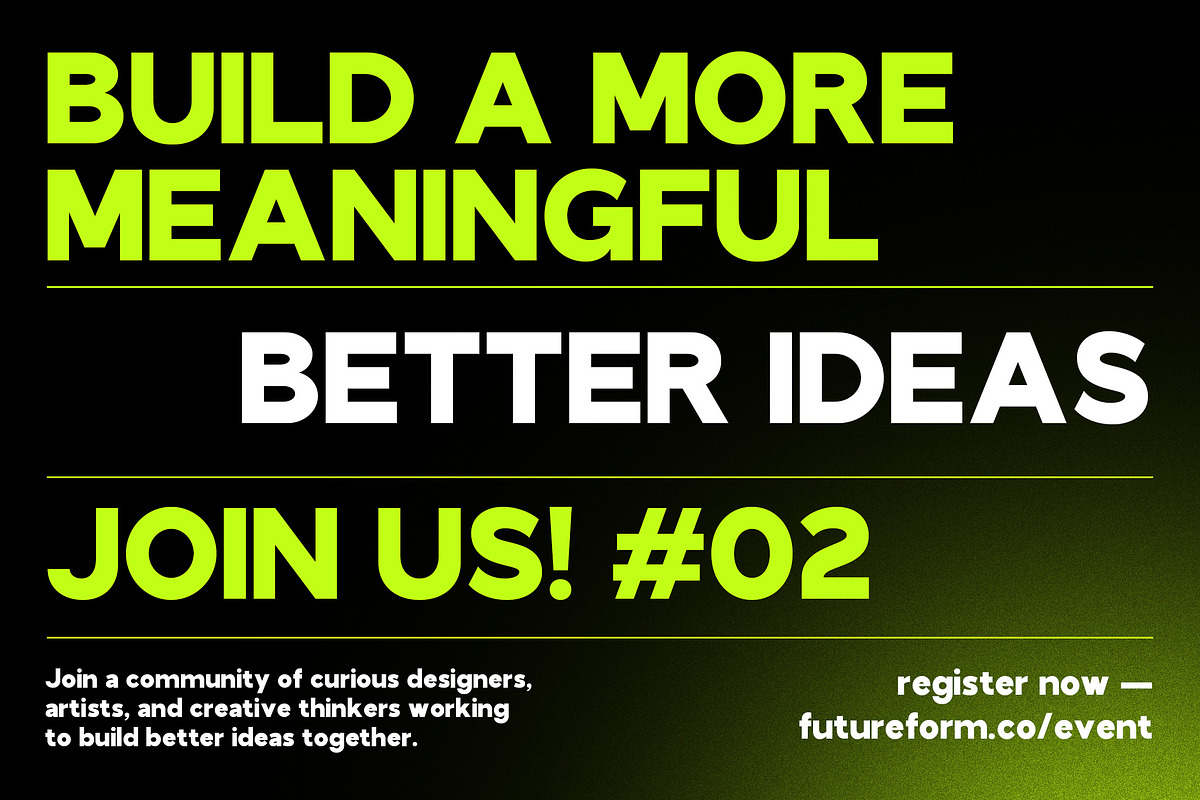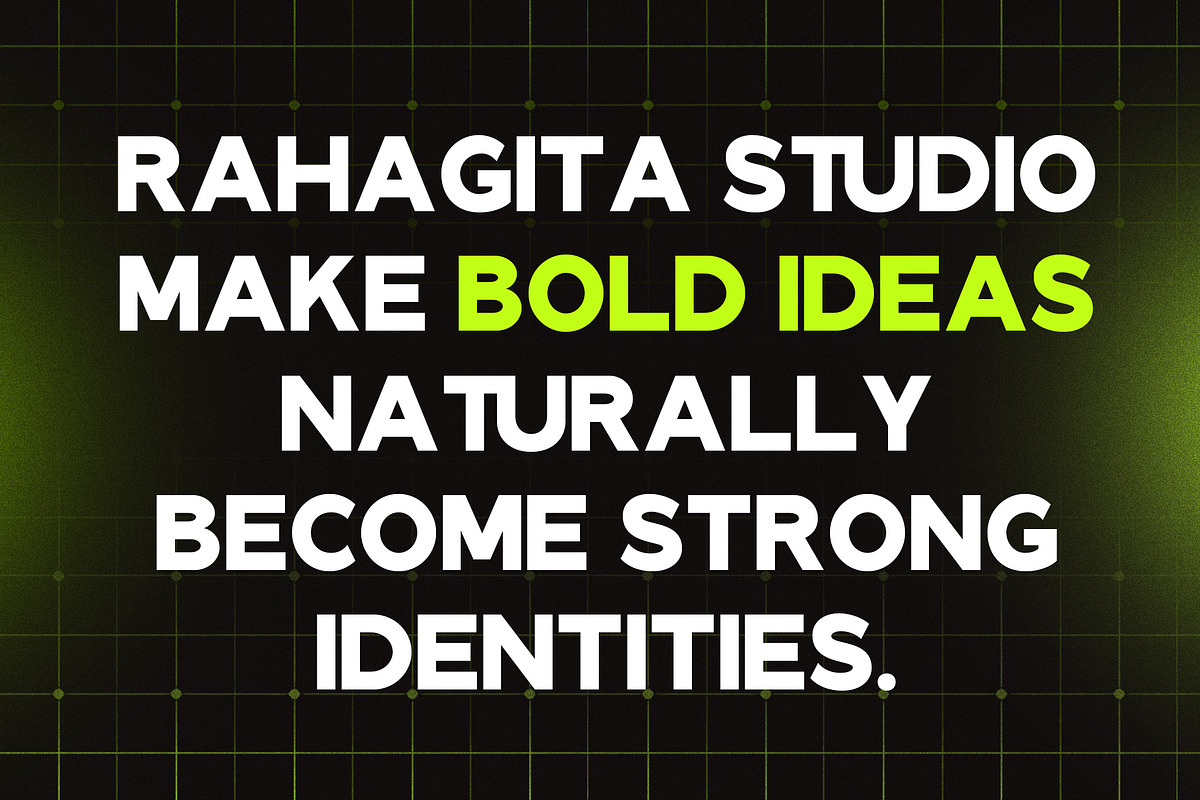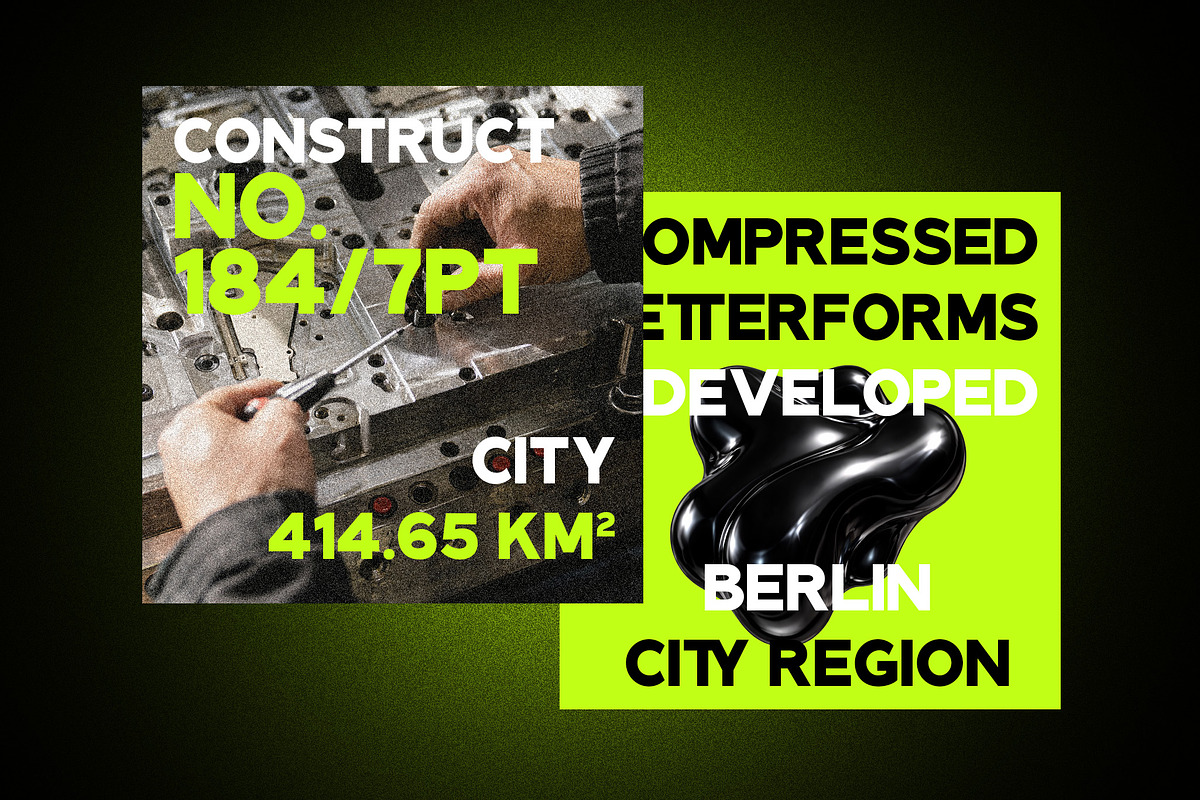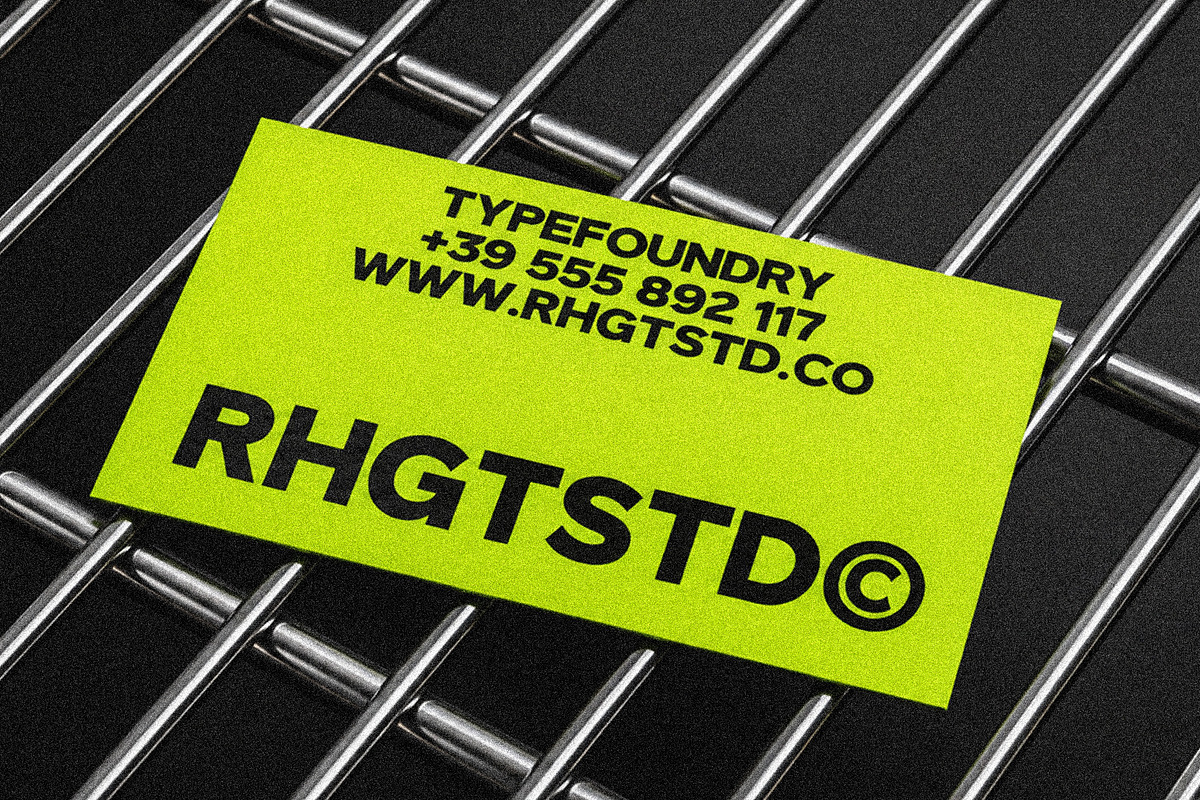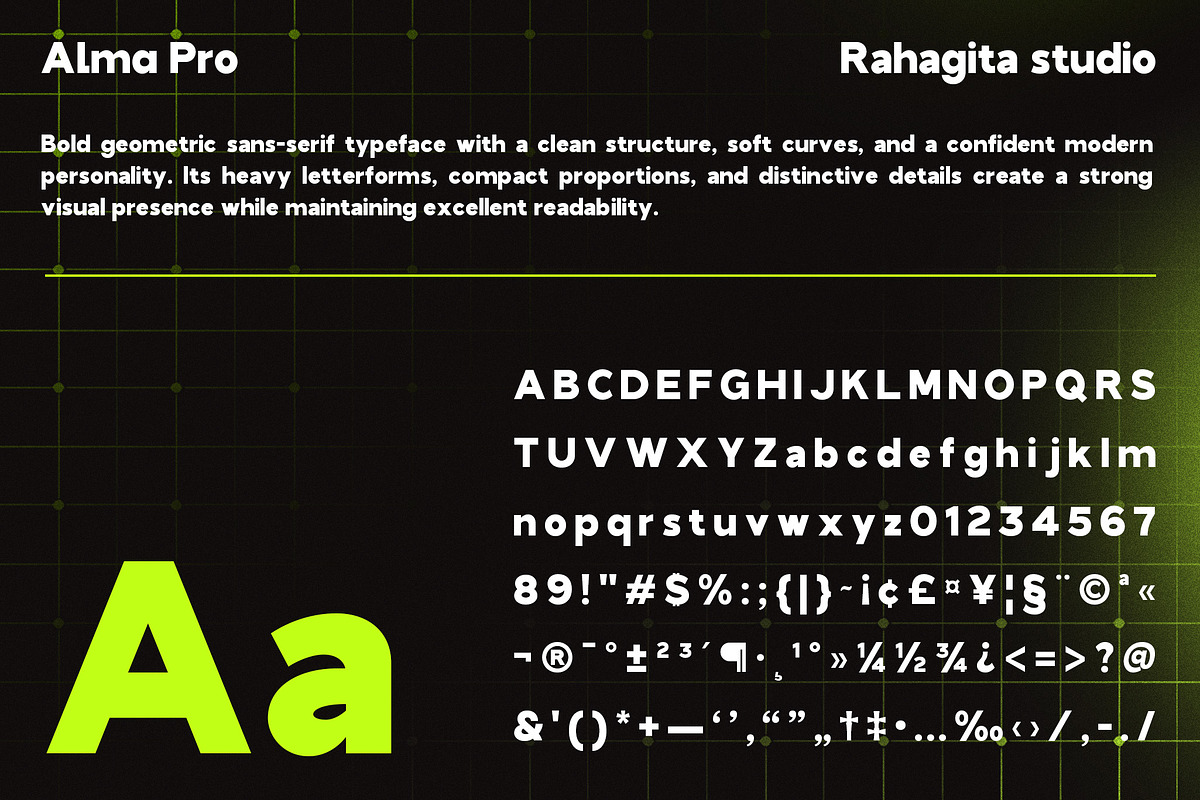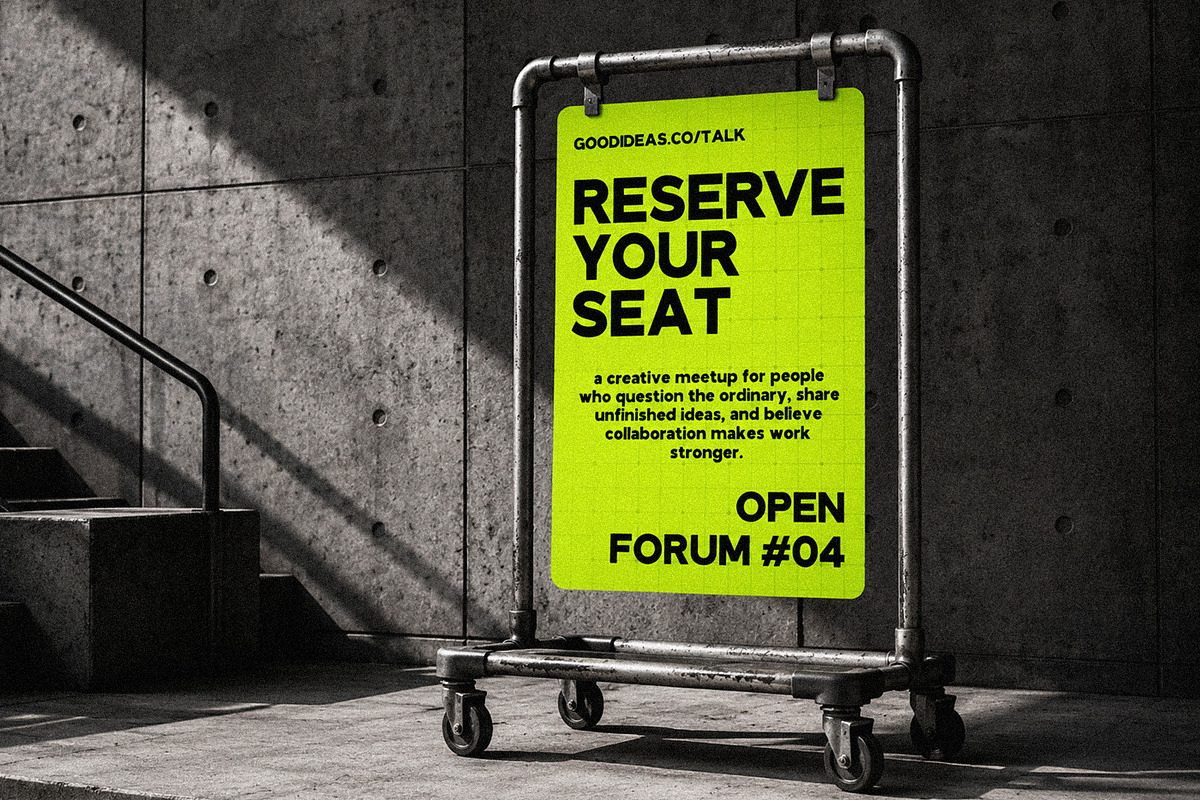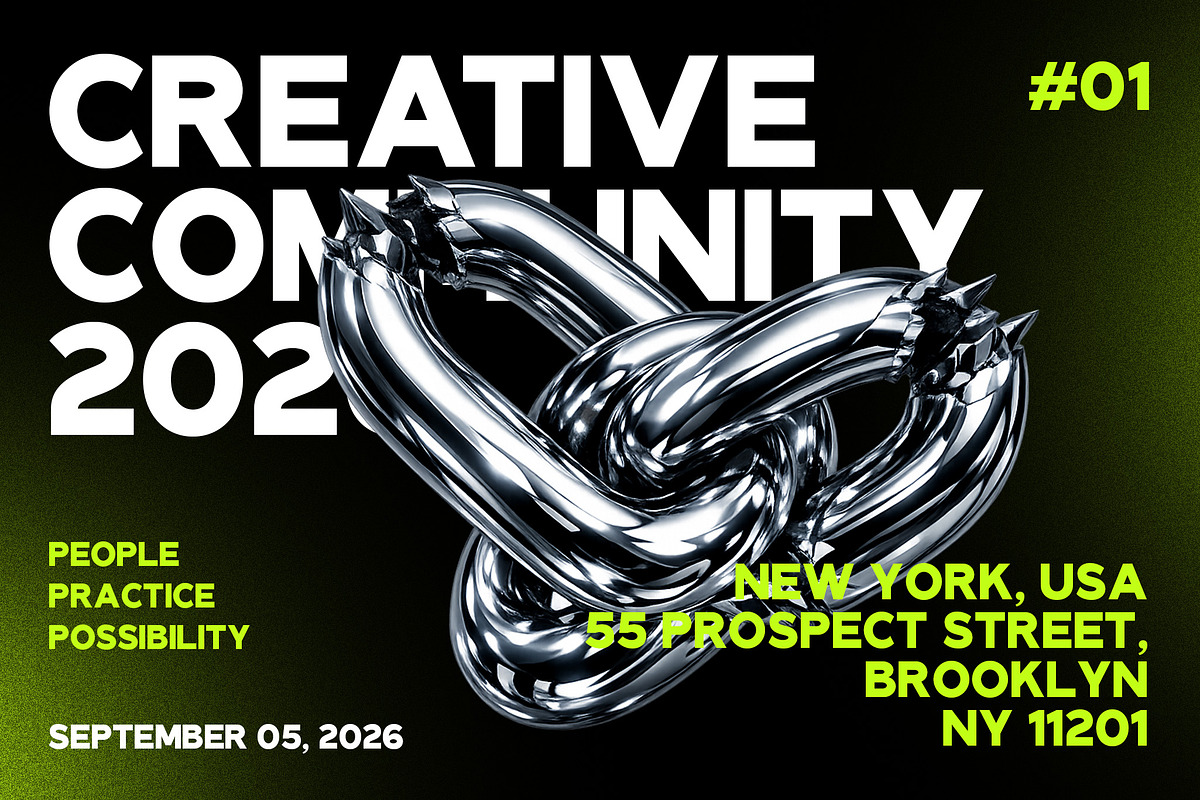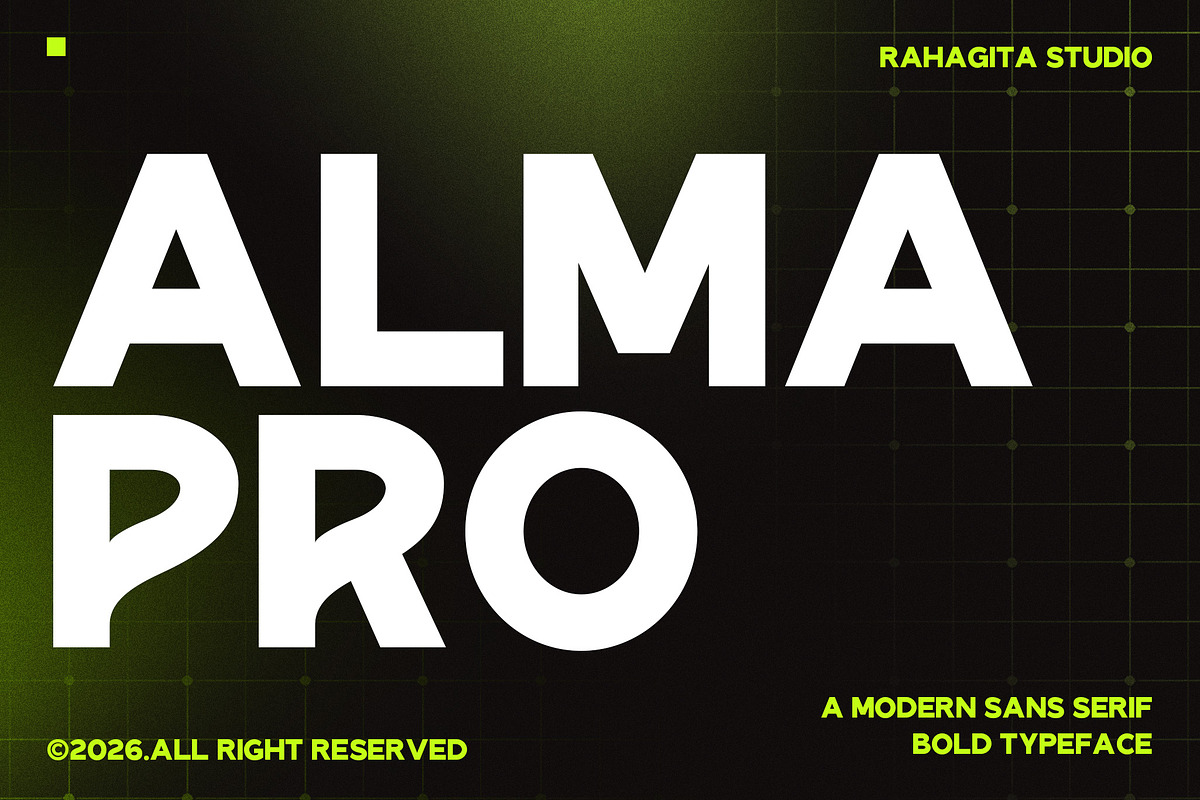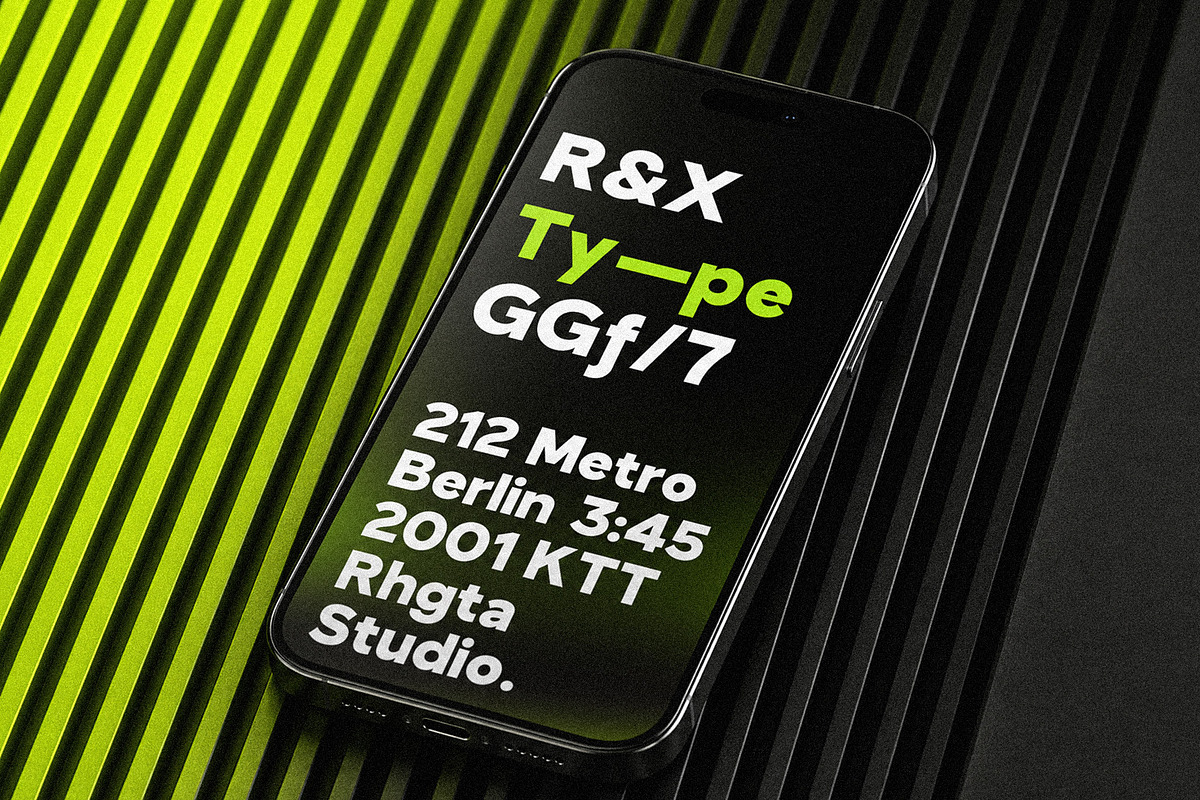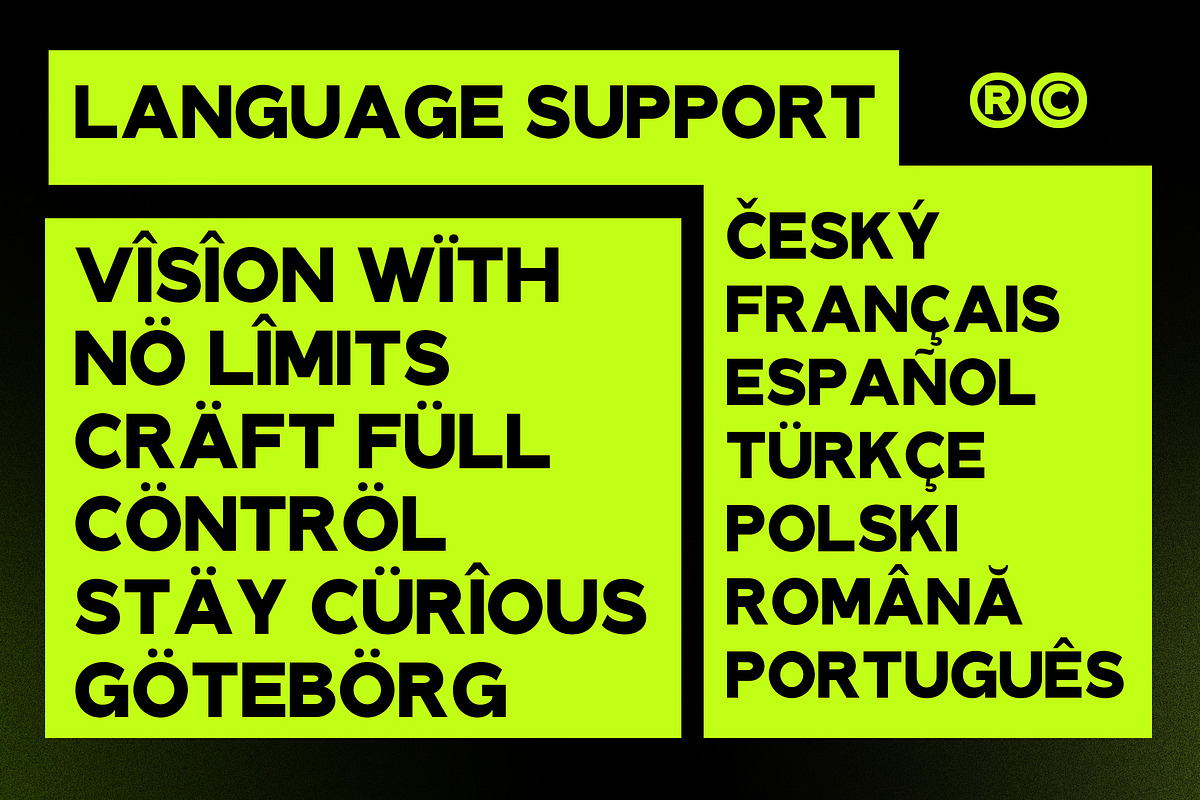
Alma Pro - Bold Modern Sans Serif
Alma Pro is a bold geometric sans serif typeface crafted by Rahagita Studio. With its heavy letterforms, compact proportions, and distinctive details, it creates a commanding visual presence while maintaining excellent readability across all sizes.
Designed with a confident, modern personality, Alma Pro combines clean geometric structure with subtle soft curves — giving your designs both strength and approachability. Whether you're setting a bold headline, designing a brand identity, or creating a high-impact poster, Alma Pro delivers consistent, professional results.